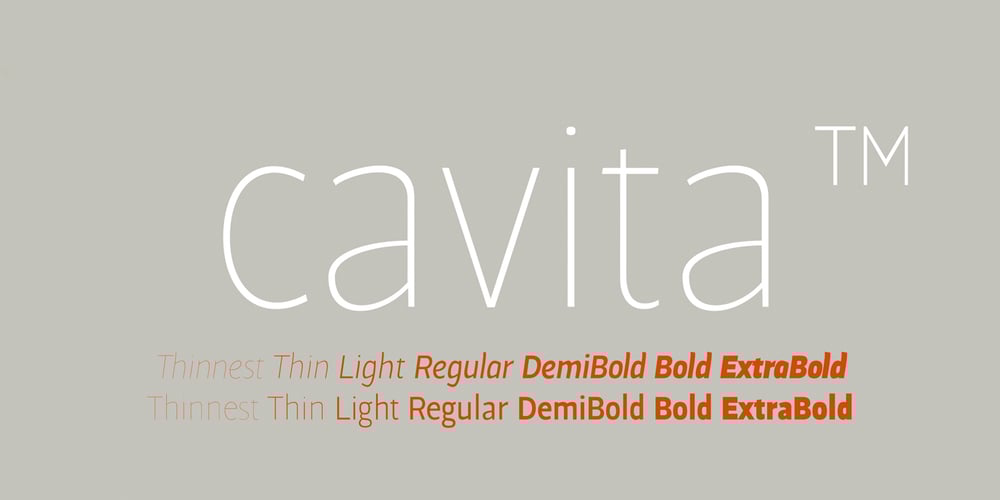
Cavita Font Family was designed by Vicente Lamónaca and published by Underground. Cavita contains 14 styles and family package options. Cavita typeface is a mix between both grotesque and calligraphic models: regulars have a rough grotesque spirit; while the italics where inspired in calligraphic gestures. All of these details are reinforced with an inverted modulation (horizontals strokes are thicker than usual). The italics seem to move away from the traditional concept of type system, but work very well along side. This typeface has very particular shapes and rhythm, it’s different and identifiable from the rest, making it a very good option to use on every piece of design.